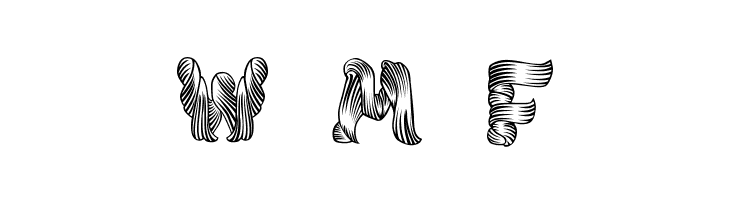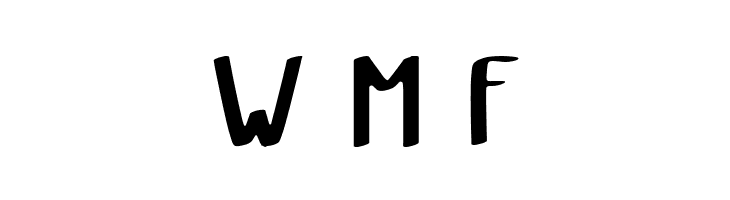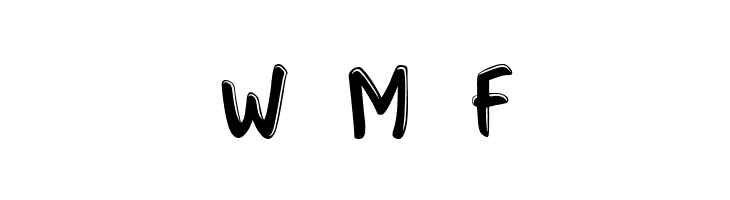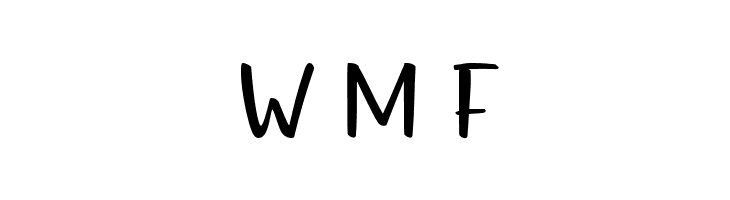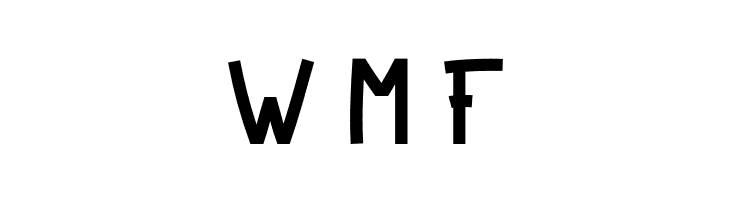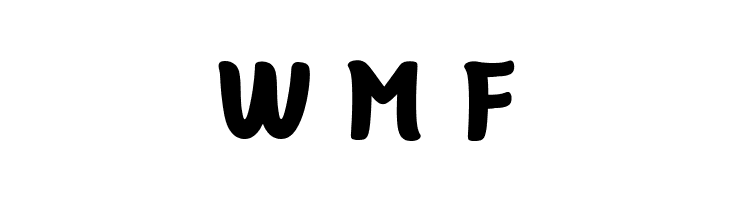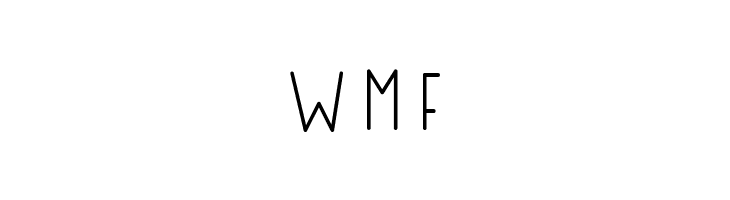
( Fonts by Paul Miller )
An elegant italic font with smooth curves and dynamic strokes, reminiscent of calligraphic handwriting.
( Fonts by Tiny Hand Letter )
A bold, playful font with a cartoonish and dynamic style.
( Fonts by Almarkhatype )
A bold, playful font with a hand-drawn, dynamic style.
( Fonts by DumadiStyle )
A bold, geometric font with a modern and clean aesthetic.
( Fonts by Agustina Sri Suryanti )
A bold, playful font with exaggerated curves and a hand-drawn feel.
( Fonts by Agustina Sri Suryanti )
A playful, bold font with whimsical, rounded strokes and a lively design.
( Fonts by Letteralle Studios )
A bold, playful font with rounded characters and a modern feel.
( Fonts by Agustina Sri Suryanti )
A playful, bold font with rounded characters and a lively style.
( Fonts by Almarkhatype )
A bold, rounded font with a playful and friendly style.
( Fonts by nomlimofont )
A playful, hand-drawn font with bold, whimsical characters.
( Fonts by Paul Miller )
A bold, rounded font with a playful and professional style.
( Fonts by Paul Miller )
A bold, italic font with smooth curves and a slightly slanted style.
( Fonts by Paul Miller )
A smooth, flowing italic font with elegant curves and dynamic slant.
( Fonts by Paul Miller )
A playful, rounded font with a friendly and approachable style.
( Fonts by nomlimofont )
A playful font with bold, rounded letters and a zigzag pattern.
( Fonts by Harjuno Kristanto )
A playful, bold font with rounded and angular elements, perfect for creative projects.
( Fonts by nomlimofont )
( Fonts by Kurnia Setyadi )
A playful, rounded font with smooth curves and a friendly vibe.
( Fonts by Kurnia Setyadi )
A playful, rounded font with bold, smooth curves and consistent spacing.
( Fonts by Yusa Studio )
A bold, playful font with rounded strokes and a cartoonish style.
( Fonts by Yusa Studio )
A playful, bold font with rounded edges and a hand-drawn feel.
( Fonts by nomlimofont )
A playful, bold font with rounded edges and a whimsical style.
( Fonts by Fachranheit )
A bold, sketch-style font with a hand-drawn, comic book aesthetic.
( Fonts by Manjali Studio )
A playful, bold font with rounded edges and a bubbly, whimsical style.
( Fonts by Endri Sulistyawan )
A bold, playful handwritten font with unique curls and loops.